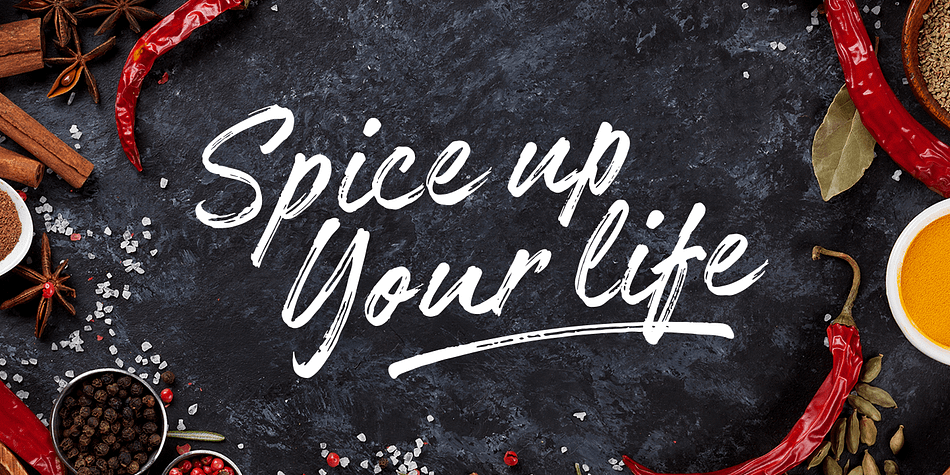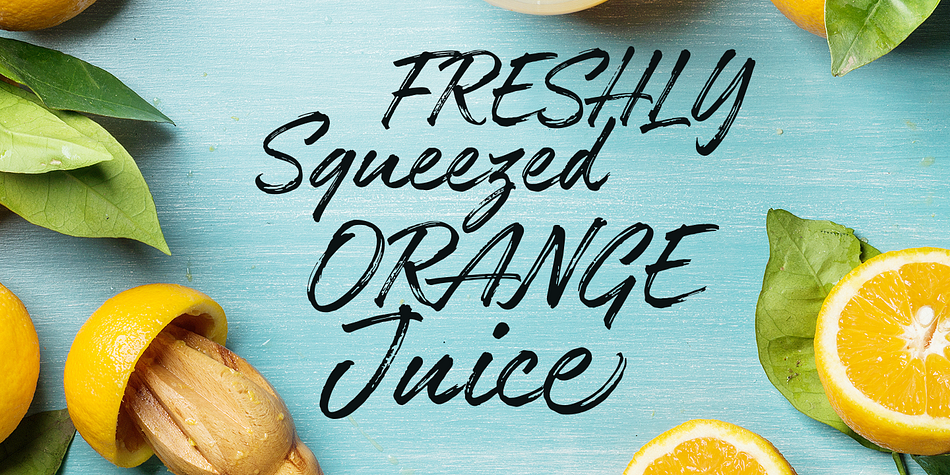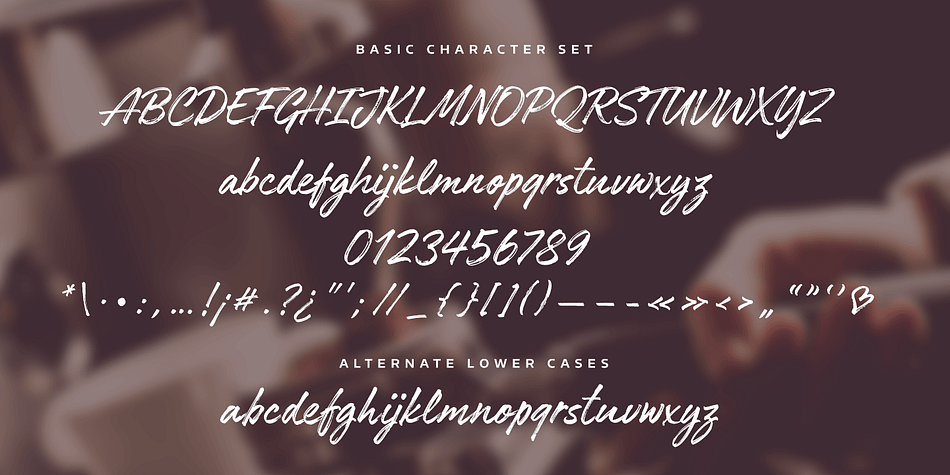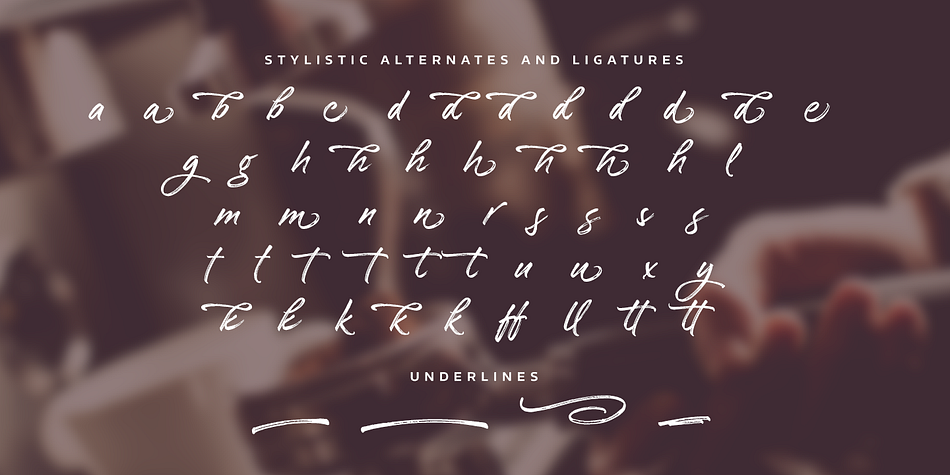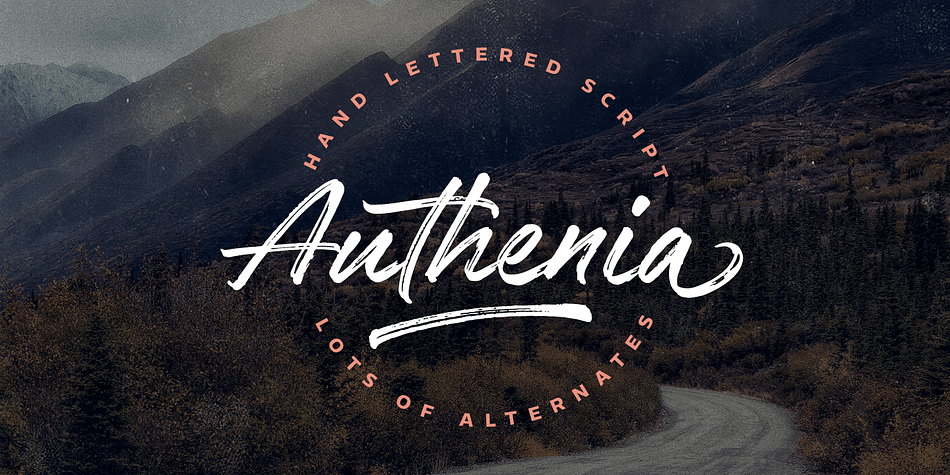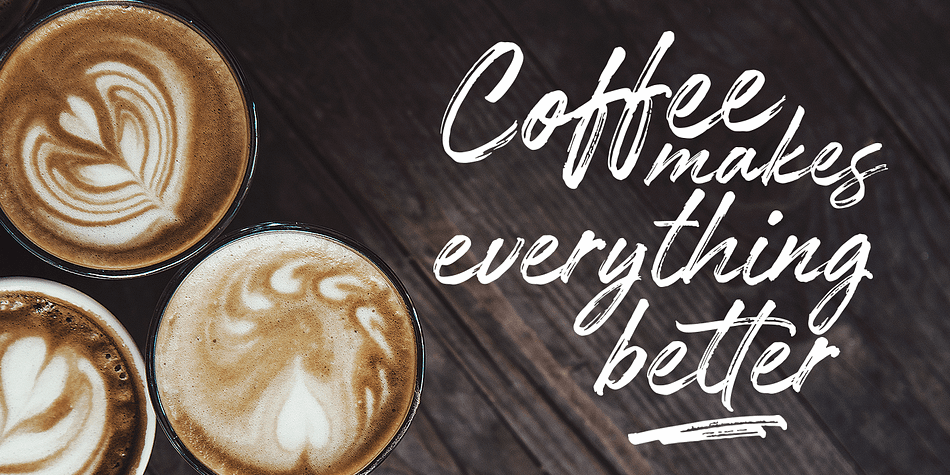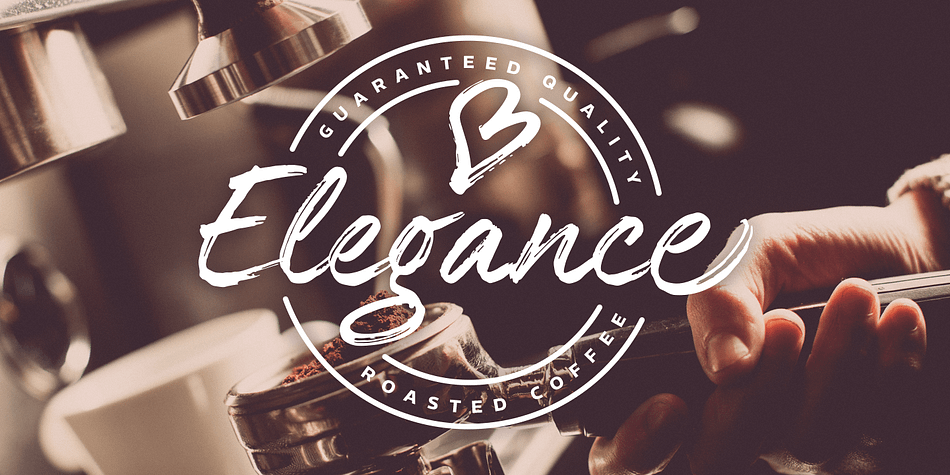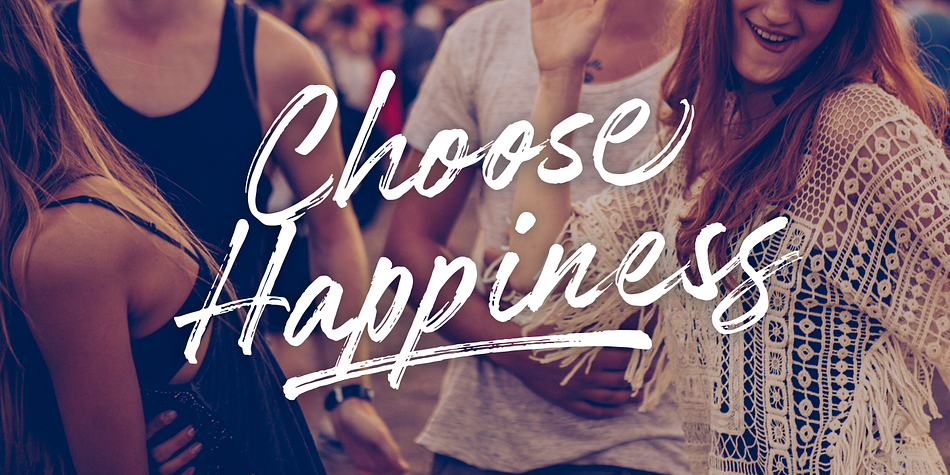
Authenia is a modern calligraphy and script font family. This typeface has two styles and was published by Mika Melvas.
Authenia is a casually and quickly written brush script. Letters are made with brush pen on a paper. Then scanned and carefully drawn into vector format. There is just a right amount of texture left so it looks good in small and big sizes. These elements gives Authenia its organic, authentic and laid-back characteristics.
Authenia has two sets of lower cases to give some variation and more natural look to your text. You can enable Contextual Alternates on OpenType panel to make these two sets vary randomly. It also has a bunch of stylistic alternates and underlines that makes your text and design even more appealing.